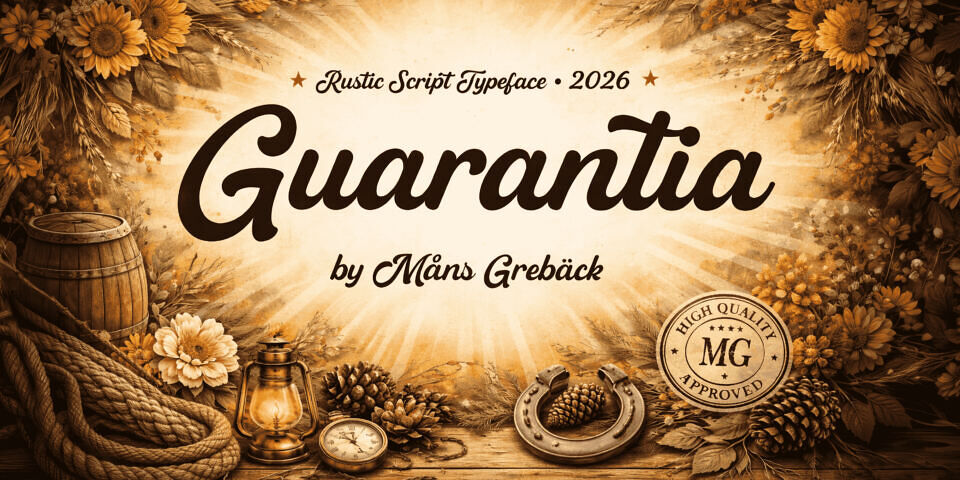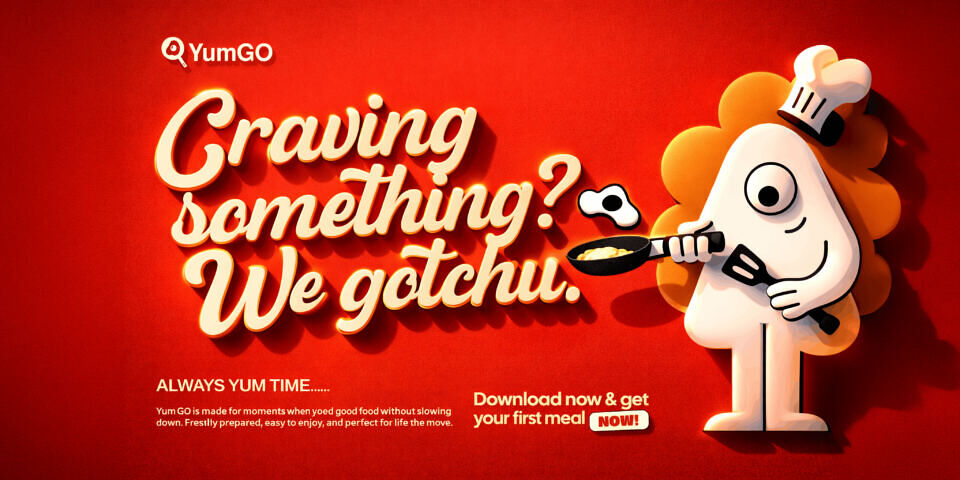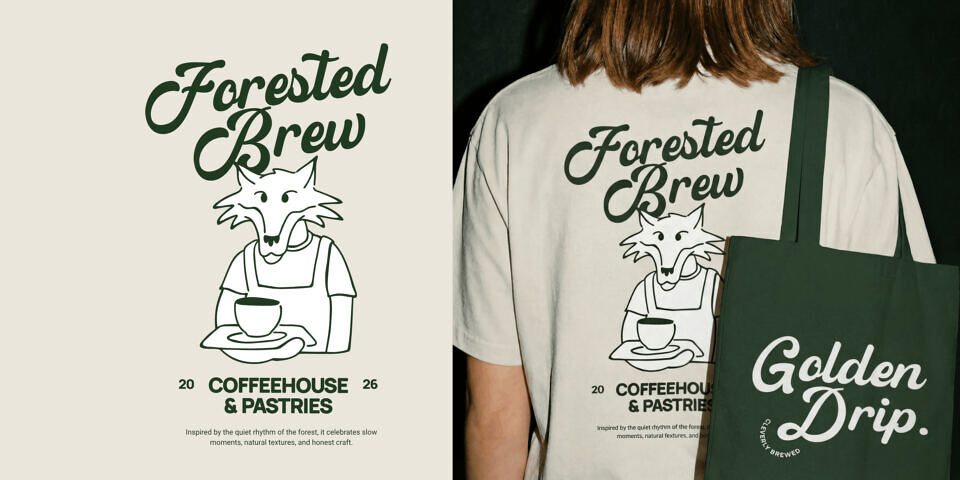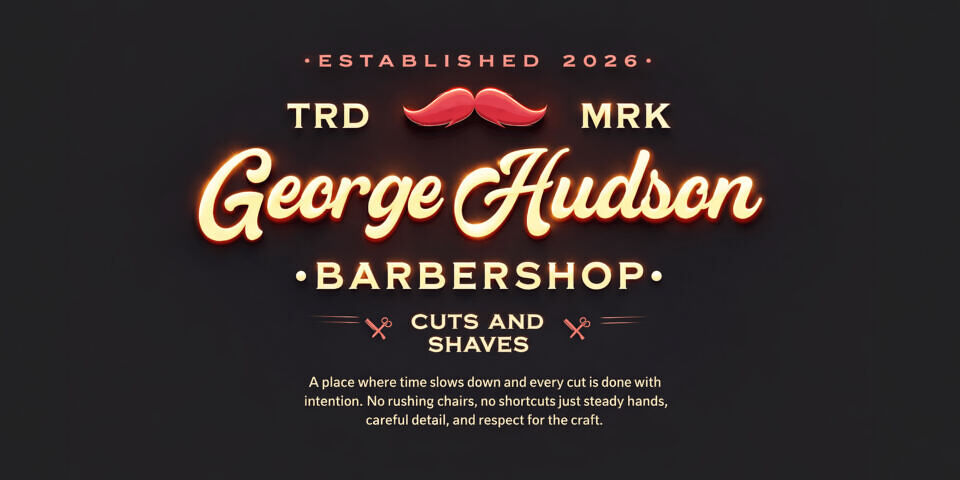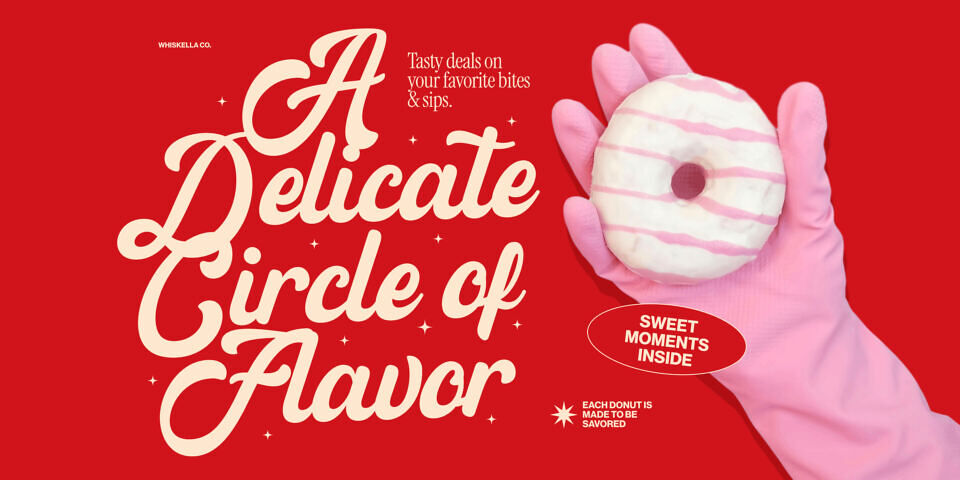
Guarantia is a rustic script typeface with a warm, grounded feel, inspired by traditional lettering and hand-painted signs. It carries a sense of heritage without feeling stiff, combining softness with confident strokes.
The letters flow with an easy rhythm, slightly irregular in a way that feels natural and human. Rounded forms meet firm terminals, giving the script a steady presence while keeping a friendly tone. Guarantia feels at home in environments where authenticity matters, where textures, materials, and craftsmanship are part of the story.